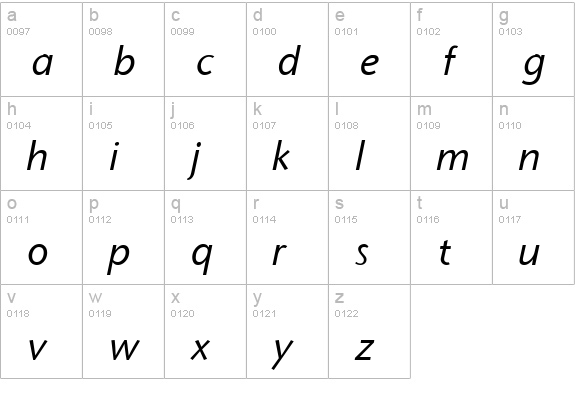
FasseSans Italic is a distinctive, italic variant in the FasseSans typeface family \xE2\x80\x94 well suited to design and typography projects.
FasseSans Italic font is a modern and stylish typeface that exudes elegance and sophistication. Its sleek and slanted design adds a touch of flair to any project, making it perfect for use in branding, advertising, and editorial design. The italicized letters give a sense of movement and dynamism, making your text visually engaging and captivating. What sets FasseSans Italic font apart is not only its aesthetic appeal but also its accessibility - it is available for free download at FontsMarket.com. This means that you can easily incorporate this versatile font into your designs without any cost, making it a valuable resource for designers and creators looking to elevate their work. Whether you're designing a website, creating a brochure, or crafting a logo, FasseSans Italic font will bring a touch of sophistication and style to your projects. Download it today and unleash your creativity with this elegant and versatile typeface.